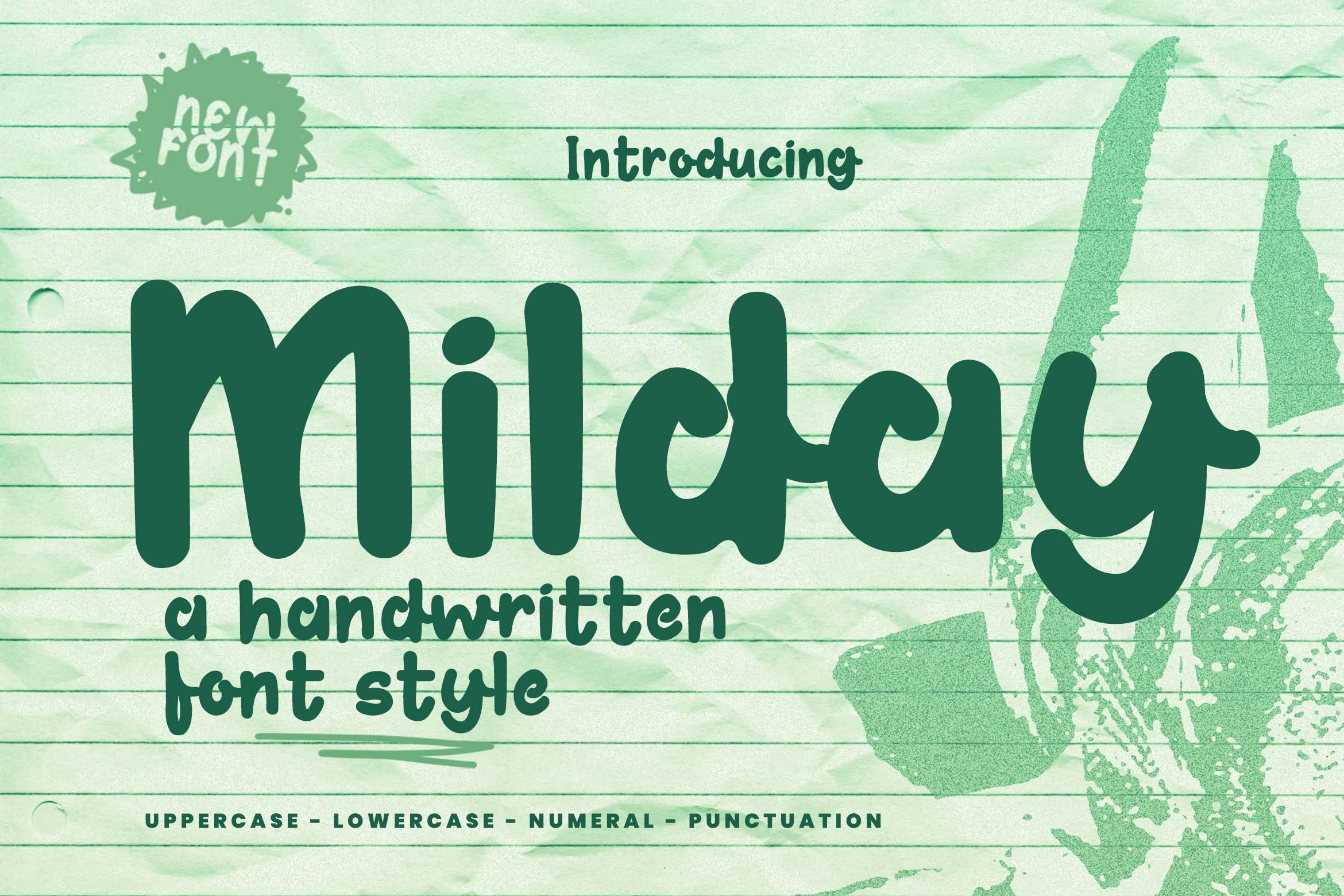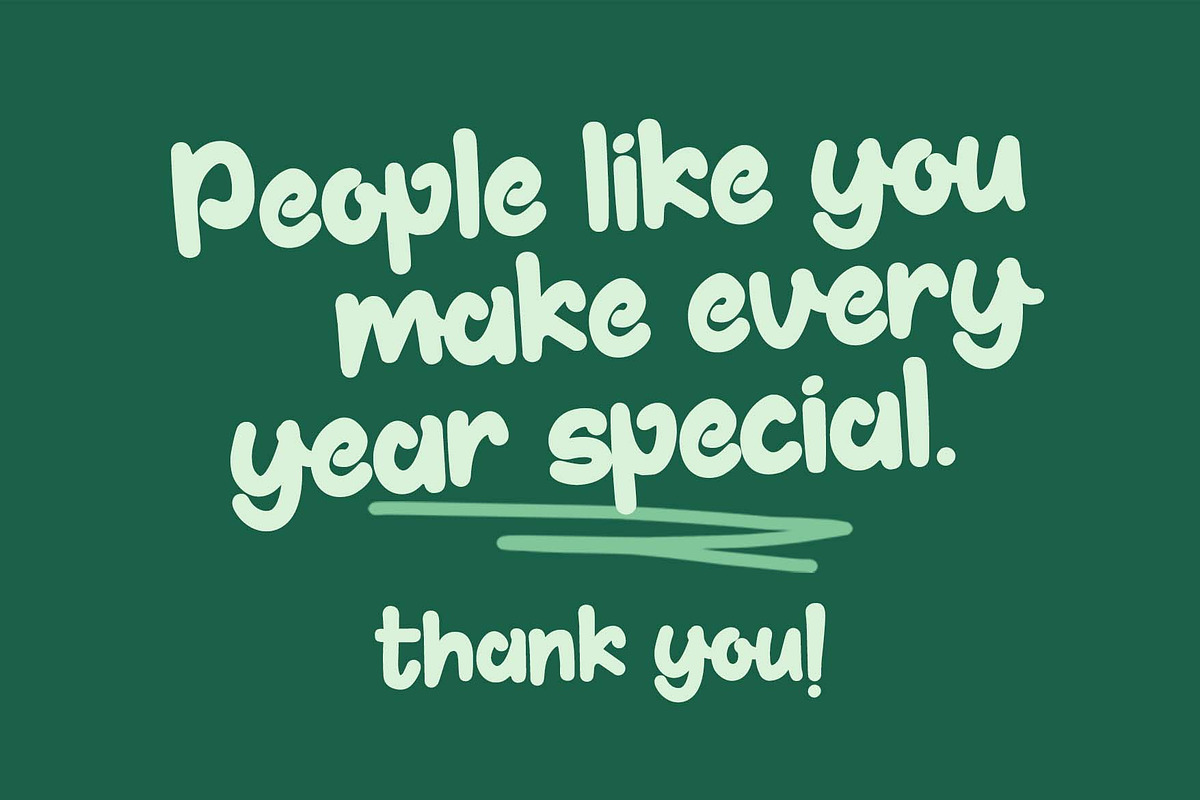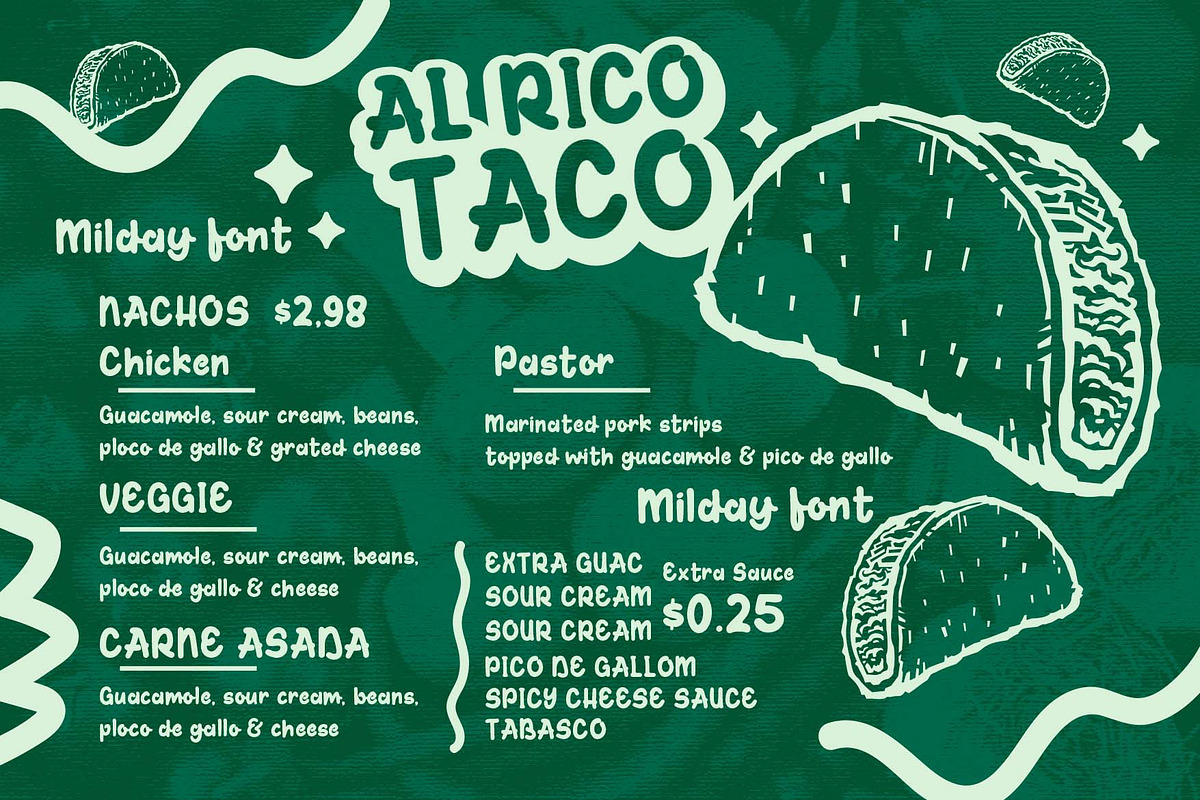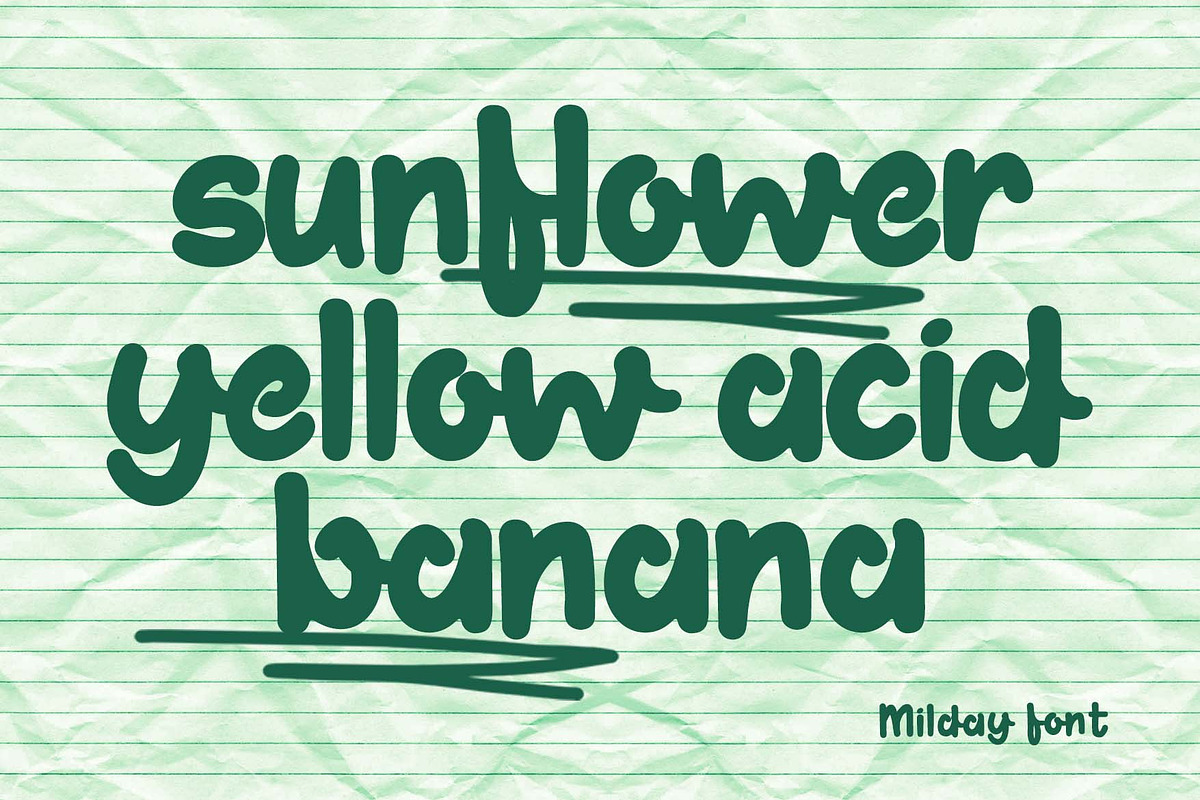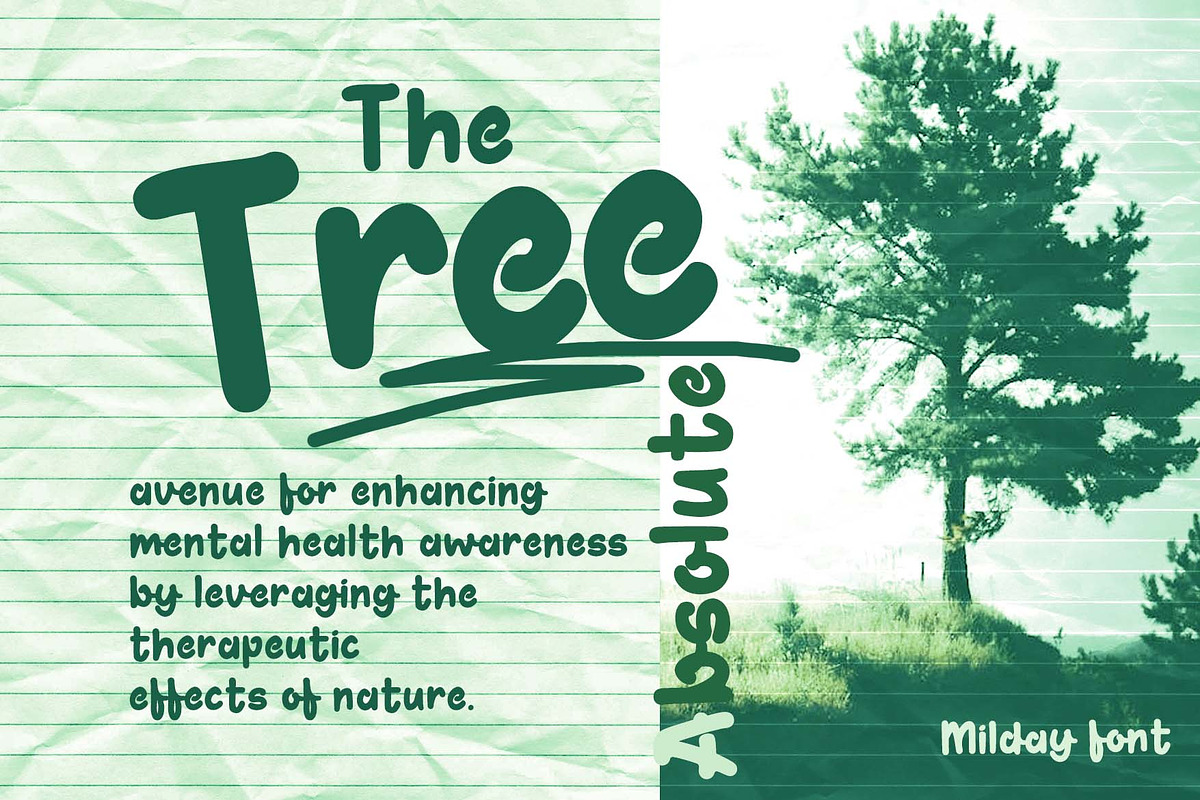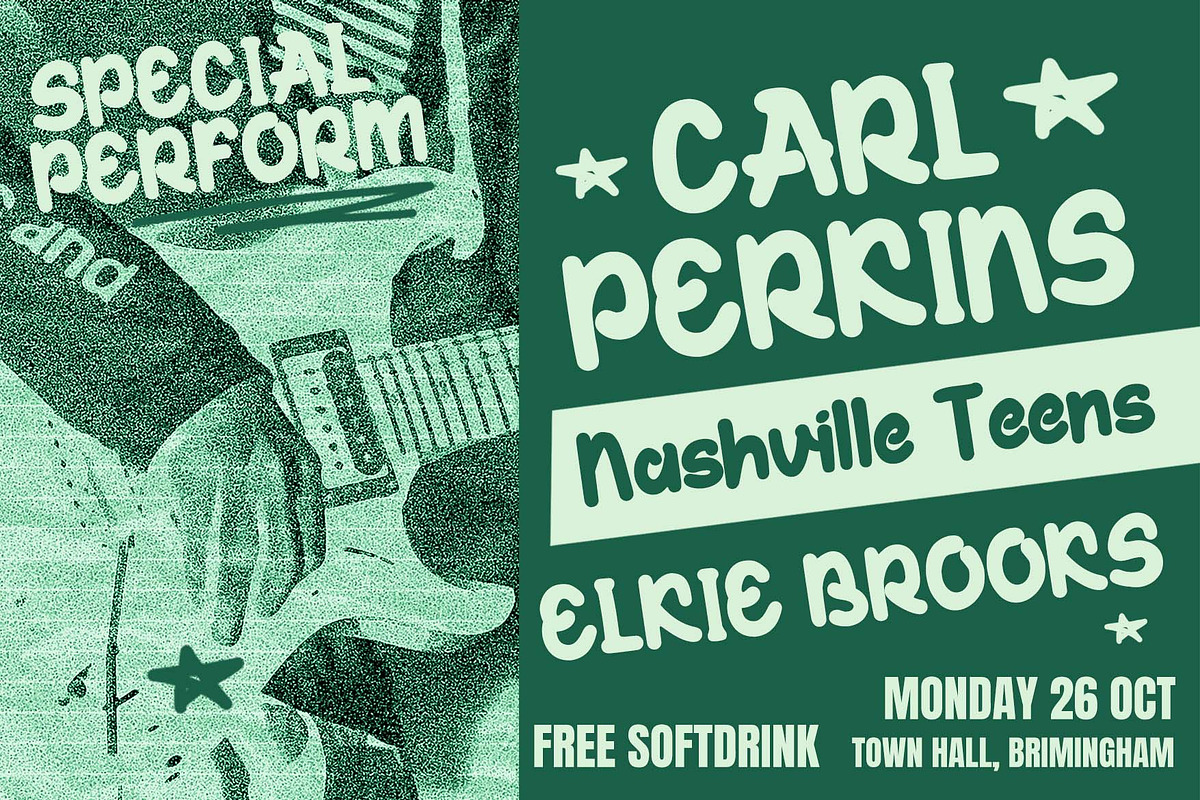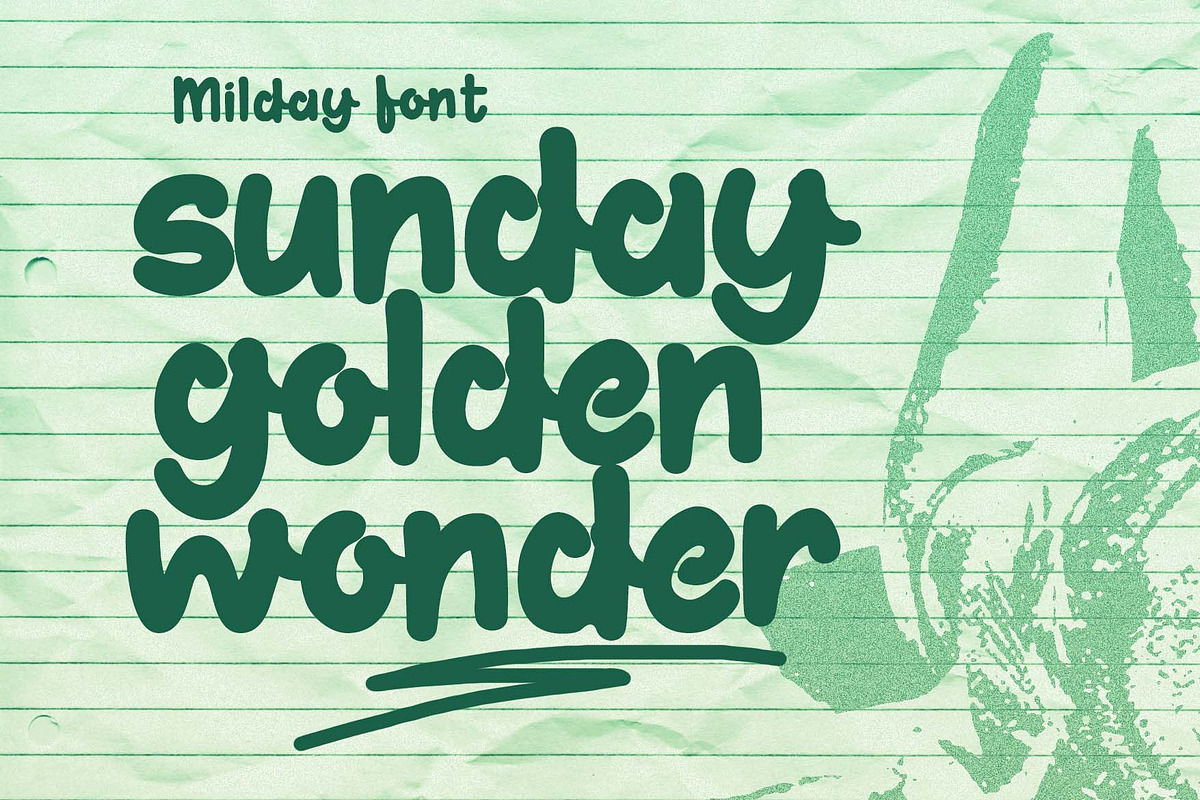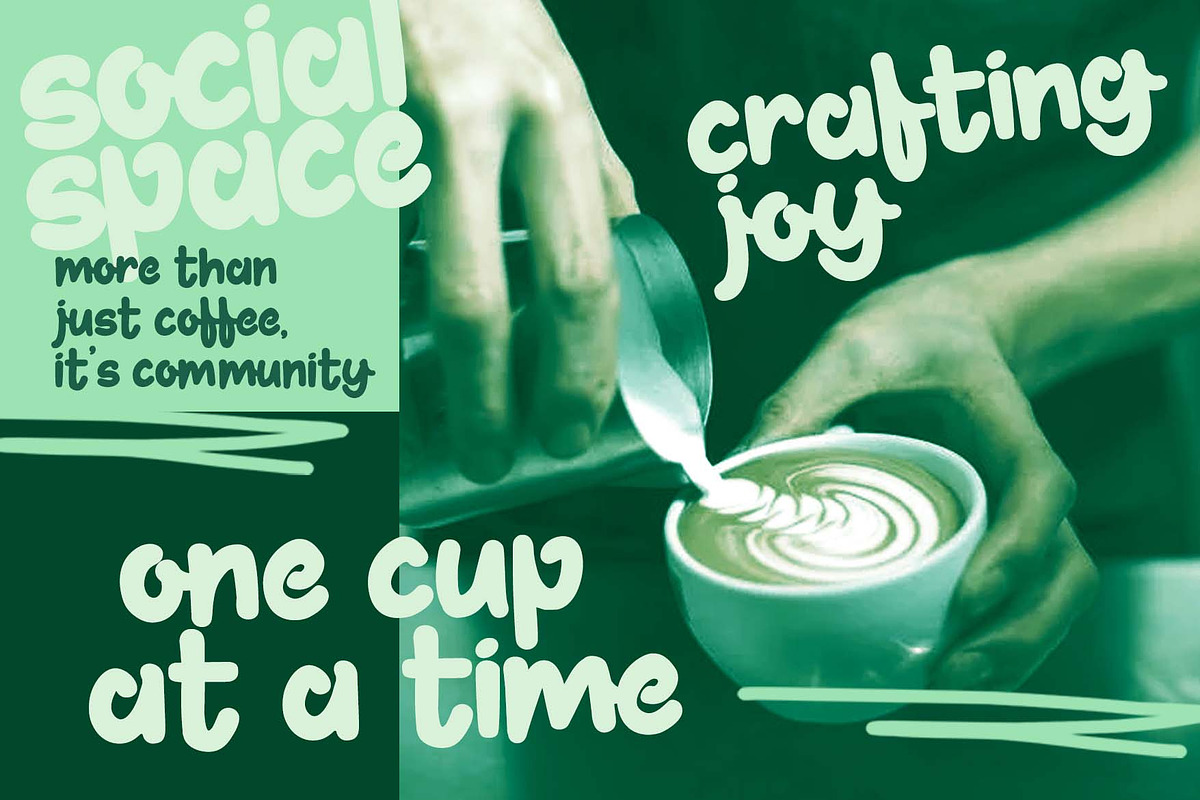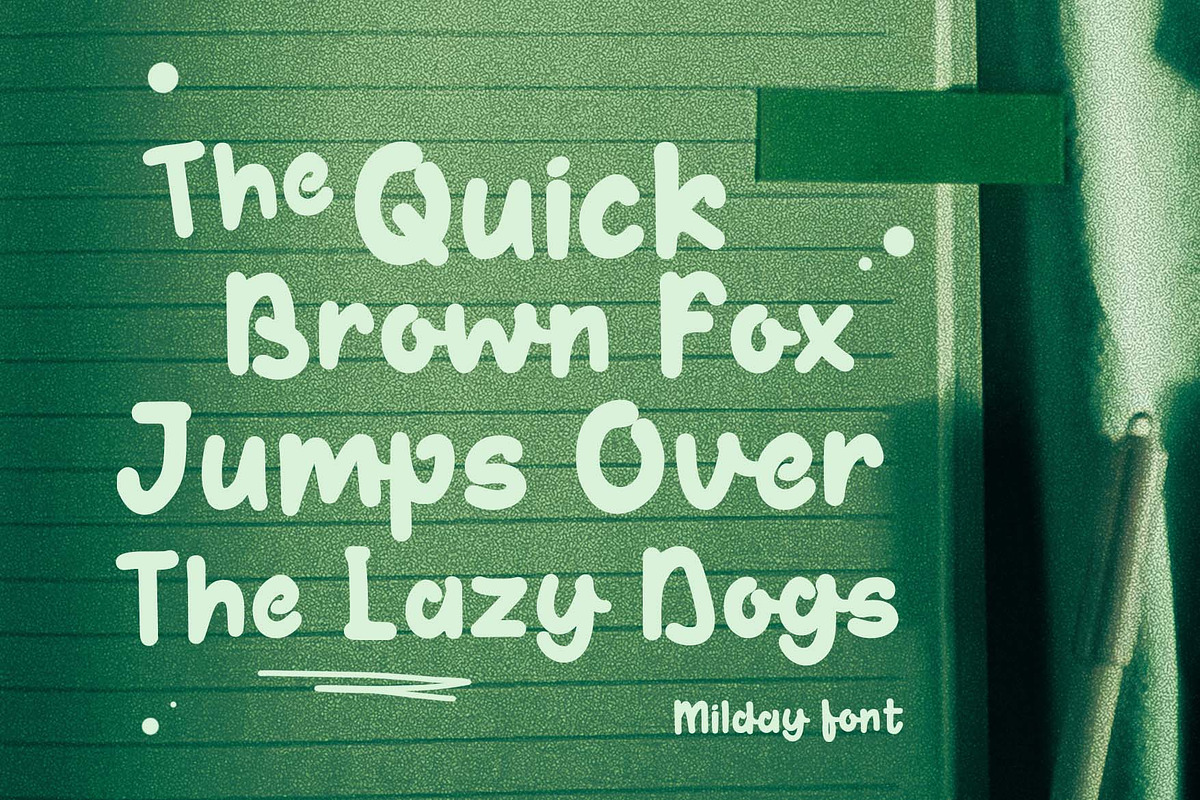
Milday a Handwritten Font
Hi Everyone! Milday has been released for those of you who are looking for a Handwritten marker free style font, The font is inspired by the abstract doodle font Style with a few combine to turn them into a bit of a playful and doodle style. Unleash your great creativity with Milday Font, perfect for used to any projects with easy-to-read character, playful and bold font for your project!.
Milday Font very suitable for Logotype, Book Cover, Weeding Invitation, Gift Card, Gretting Card, Poster, Merchandise, Packaging Label, Badge/Emblem Logo and much more.